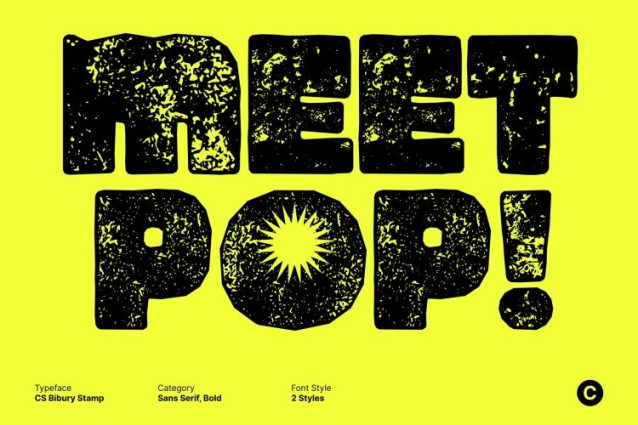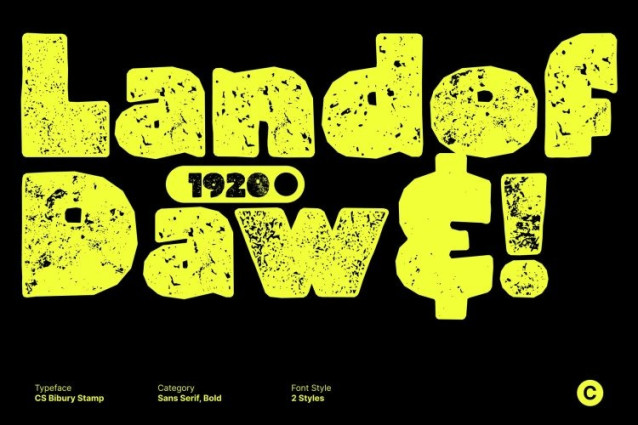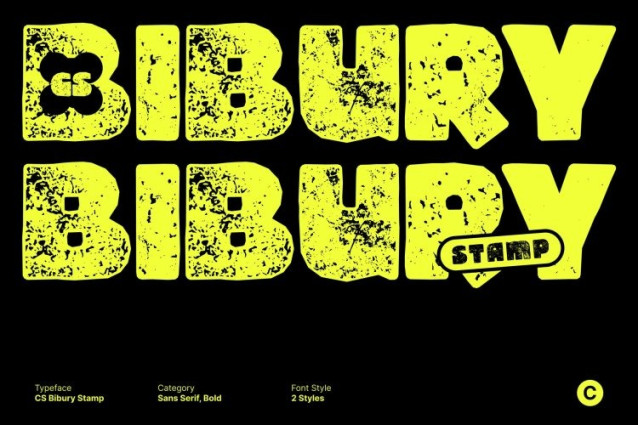
CS Bibury Stamp Font
CS Bibury Stamp Font This is a display font that captures the bold spirit of the ’90s through eye-catching shapes and a lively, expressive attitude. Its chunky letterforms and confident curves deliver instant personality and fun. Enhanced with a stamp effect, the font gains textured depth and slightly worn edges, evoking the look of old posters, screen prints, and vintage packaging.
Funky Forms with Dynamic, Stamped Movement
Inspired by the funky aesthetics of ’90s music posters, cartoons, and pop culture, this font features exaggerated curves, playful proportions, and energetic rhythm. The stamped texture adds an organic, imperfect finish that makes each character feel hand-pressed and full of motion echoing the raw creativity of retro ads, TV shows, and neon-era visuals.
A Cheerful Throwback with Vintage Texture
Radiating joy and nostalgia, brings a cheerful throwback vibe to modern designs. Its combination of bold retro shapes and distressed stamp texture makes it perfect for branding, packaging, digital graphics, social media content, and creative campaigns that want to stand out while embracing nostalgic fun.
Designed to Evoke Emotion, Style, and Retro Soul
More than just a retro typeface, this font captures the freedom, creativity, and playful flair of a memorable visual era. The added stamp effect reinforces its old-school character, transforming every design into a bold, expressive statement filled with personality, emotion, and timeless ’90s style.